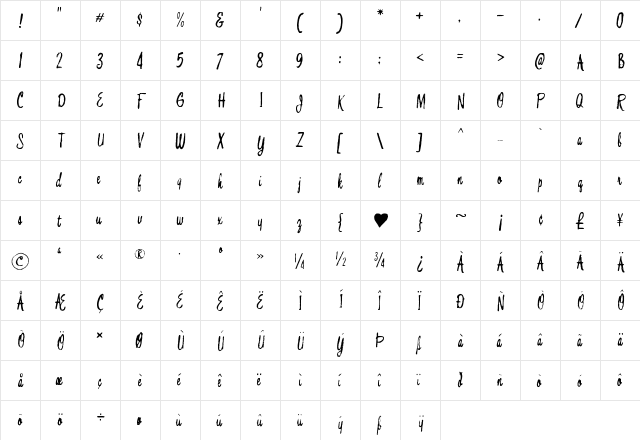
Bouffant Regular
Design Context for Bouffant Typeface
Bouffant is a composed and adaptable typeface that performs quietly and consistently across a wide range of design contexts.